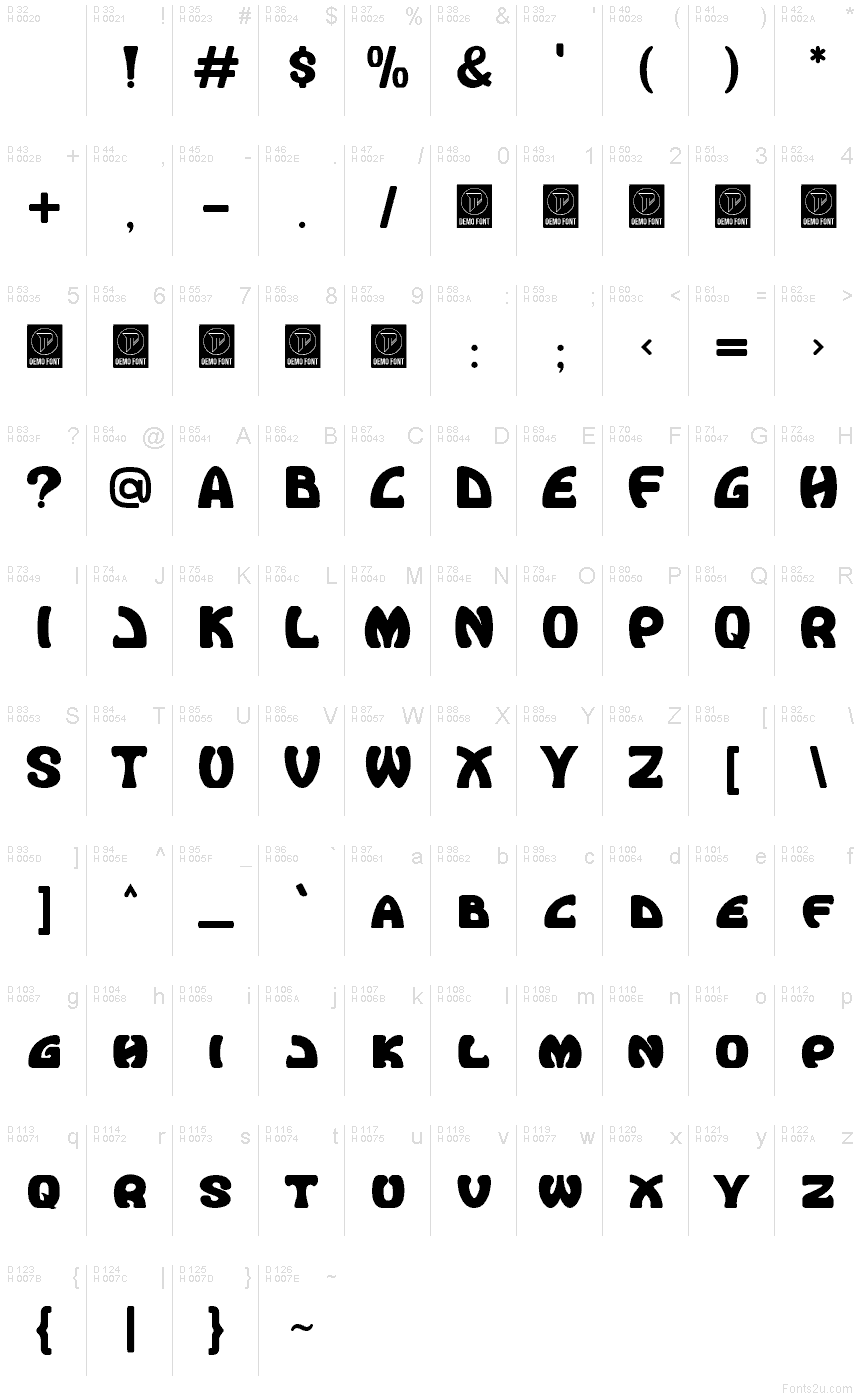
Craftstone
Craftstone font by Ronin Design is a bold display typeface inspired by the retro. Featuring organic shapes and smooth curves, it has a sturdy feel with an overall remarkable visual impact. This expanded font immediately captures the attention of all through its wide letters.
Free for all, Craftstone is great for designing signs, headlines, posters, magazines, branding projects, titles etc. Use it in restaurants or hotels; this typeface fits signage perfectly well. Try out in ads and notices or use it to create merchandise packaging where visual interest is needed.